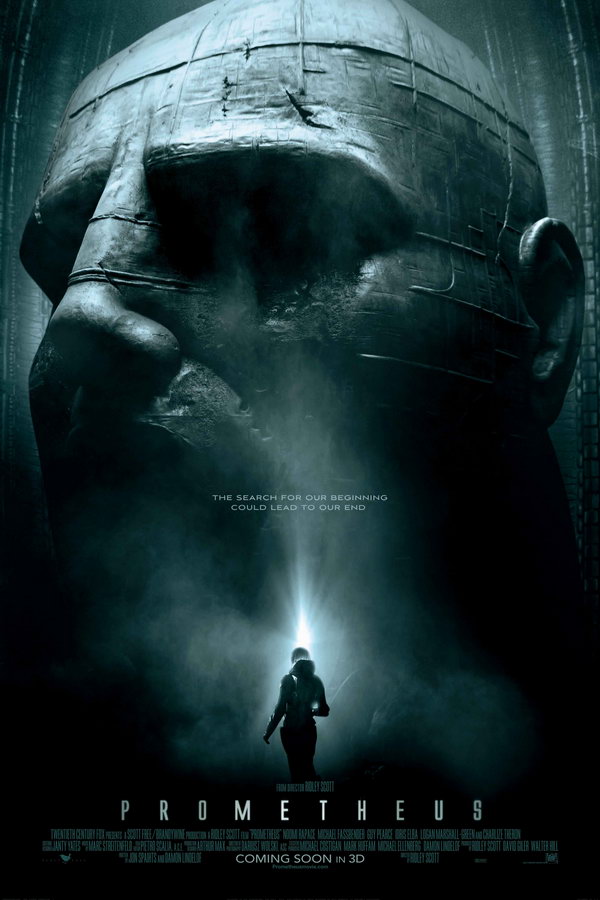
Prometheus Font
Fonts in UsePrometheus is a science fiction horror movie directed by Ridley Scott. It follows a team of explorers who discover a clue to the origins of humanity, leading them on a perilous journey to uncover the secrets of the universe.